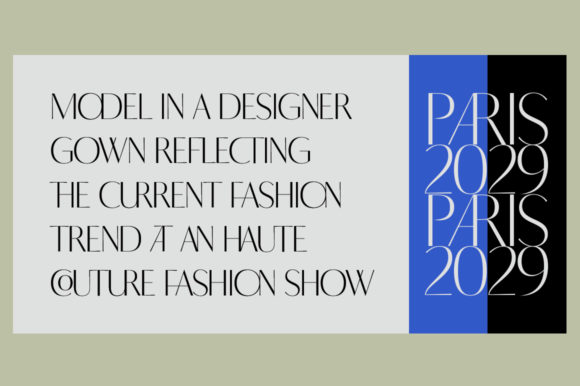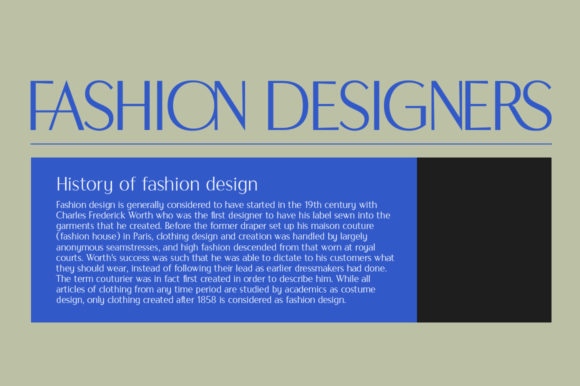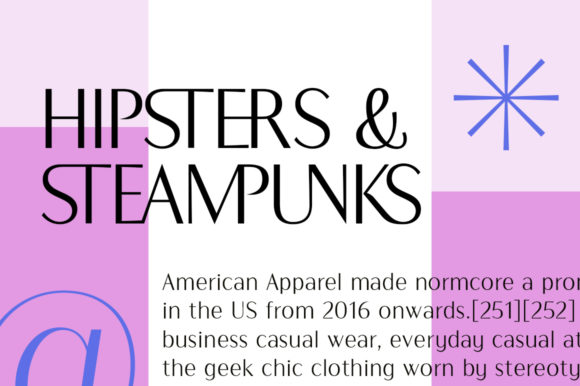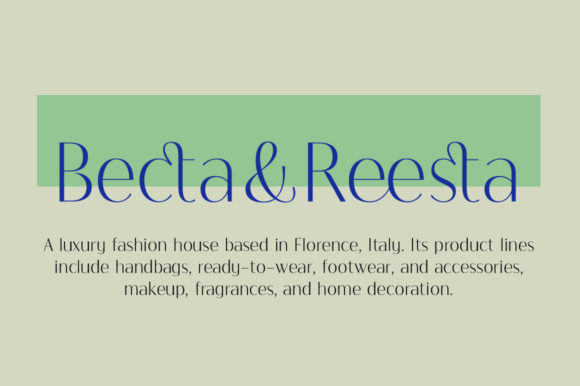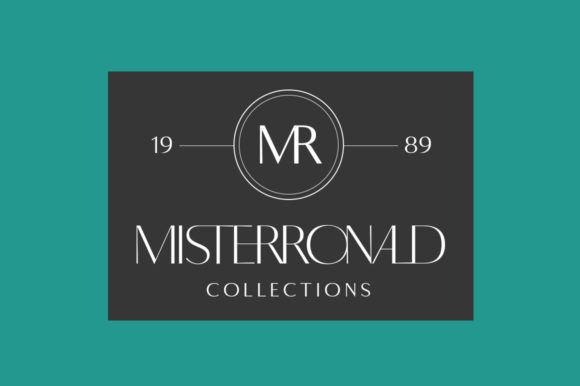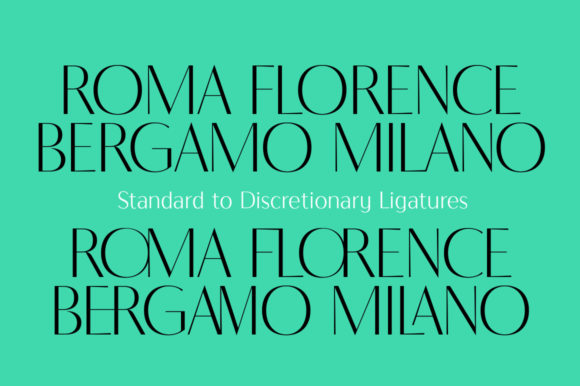
Introduction to Natasha Walker Font
Have you ever stared at a blank canvas, waiting for inspiration to strike? The blank page can be intimidating, but it’s moments like these that we often find our most creative ideas. For designers, finding the perfect font can be just as daunting as staring at that blank canvas. But, what if I told you there’s a font that’s so versatile, so elegant, and so easy to use, that it’s sure to become your go-to design resource?
| 👤 Author | hadiftype |
Enter the Natasha Walker Font, a stunning sans serif font that’s perfect for any creative project. With its neat and simple style, this high-quality font is sure to elevate your designs to the next level. Whether you’re working on a project that requires a transparent background or a simple, yet effective text overlay, Natasha Walker Font has got you covered.
Key Features of Natasha Walker Font
- High-quality design resource ideal for creative projects, offering a unique and elegant aesthetic.
- Unique characteristics: The Natasha Walker Font features a mix of modern and classic elements, making it perfect for a wide range of design applications, from branding to editorial content.
- Designed to be versatile and easy to use, the Natasha Walker Font is an excellent addition to any designer’s toolkit.
Honest Review: Natasha Walker Font
I recently had the chance to work with the Natasha Walker Font, and I must say, it’s a fantastic addition to any designer’s toolkit. This font is perfect for creatives working on a project that requires a touch of elegance and sophistication.
What works well with the Natasha Walker Font is its high quality and versatility. It comes in a range of styles, from casual to formal, making it suitable for a variety of design projects. The transparent background is also a huge plus, allowing designers to easily layer and manipulate the text in their creative projects.
- ✨ Versatile font that suits various design styles
One limitation of the Natasha Walker Font is that it may not be suitable for projects that require bold, attention-grabbing text. Additionally, the font can look a bit plain when used for large blocks of text.
Overall, I’m impressed with the Natasha Walker Font, and I would highly recommend it to designers looking for a high-quality, versatile font for their creative projects. It’s definitely a valuable design resource to have in your toolkit.
Introduction to Natasha Walker Font
The Natasha Walker Font is a high-quality design resource ideal for creative projects. This free download offers a unique and elegant touch to any design, making it perfect for various applications.
Common Use Cases and Tips
The Natasha Walker Font is perfect for various creative projects, including wedding invitations, greeting cards, and business presentations. To get the most out of this font, use it on a transparent background to achieve a seamless look.